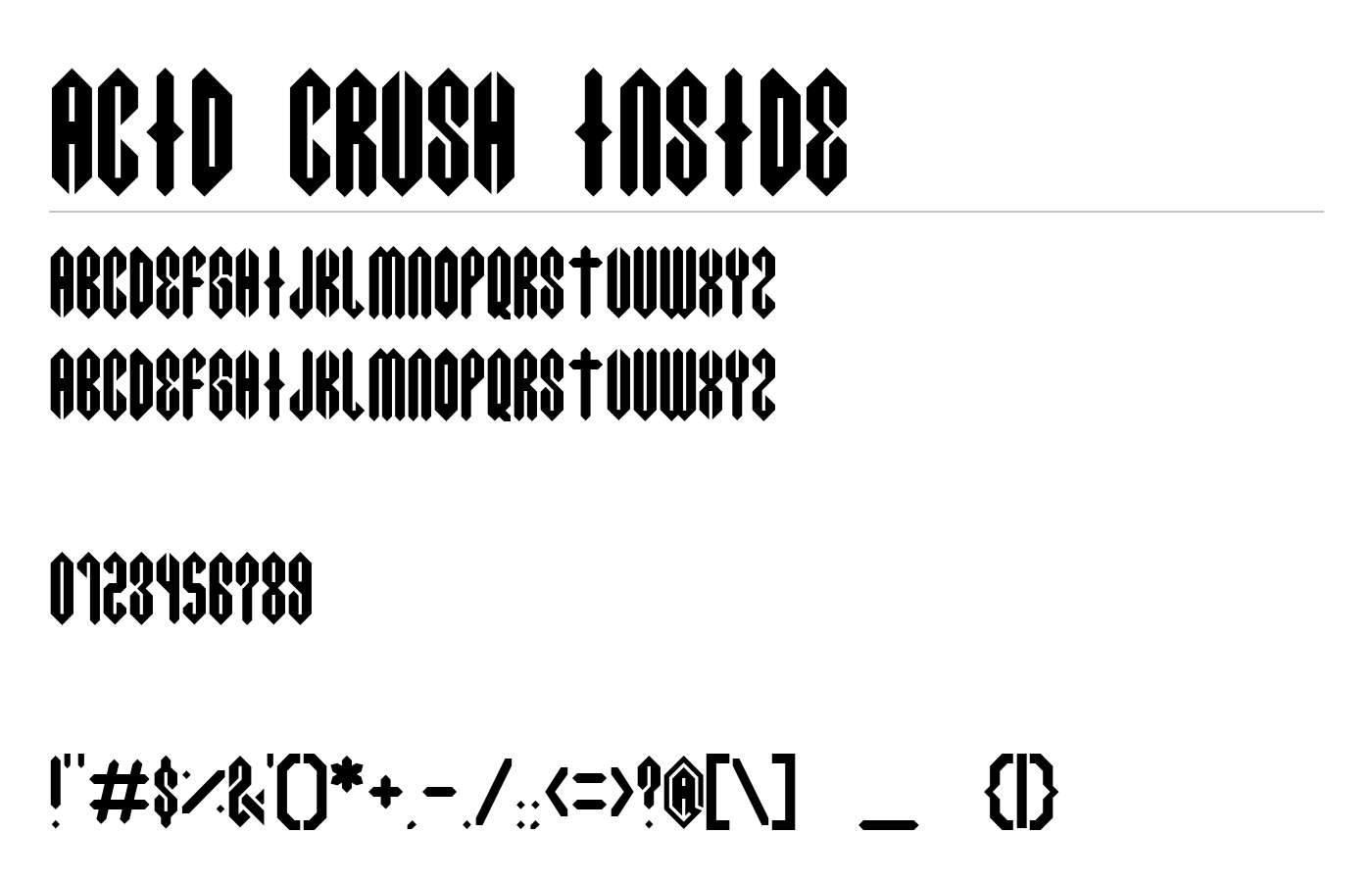
Acid Crush is a bold, condensed display font with a sharp, geometric style that conveys a strong, edgy personality. Its angular letterforms and high contrast strokes make it perfect for eye-catching headlines, logos, and branding projects that want to communicate intensity and modernity. This unique font works best in designs needing a powerful, futuristic vibe with a distinctive, alternative flair.
Acid Crush Font
About Acid Crush Font
| Font family | Acid Crush Font |
| Designer | Felipe Nascimento |